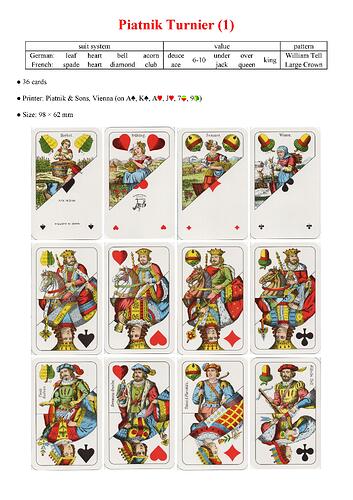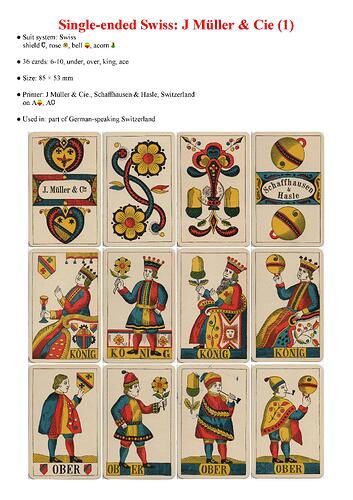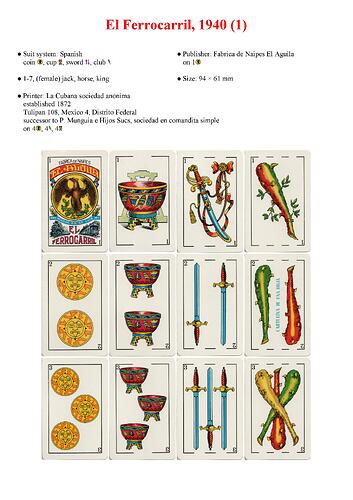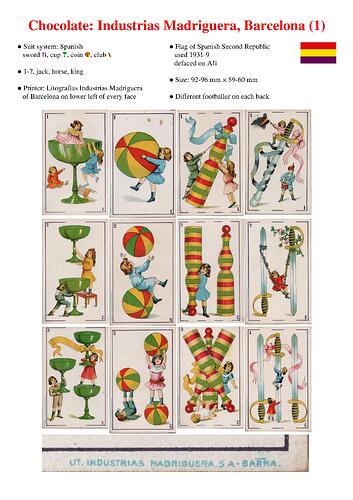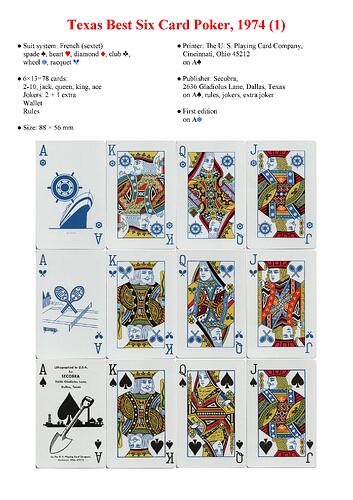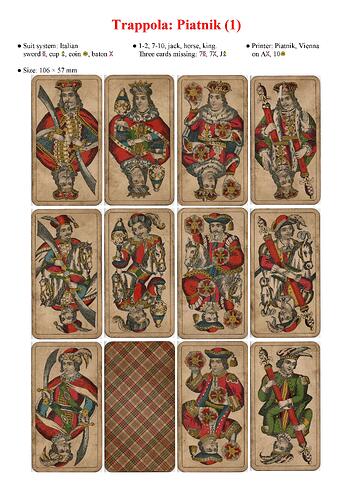
Bern-suits is a chromatic font intended for use at text sizes.
I made it to catalogue my collection of playing cards. All the characters are suit signs.